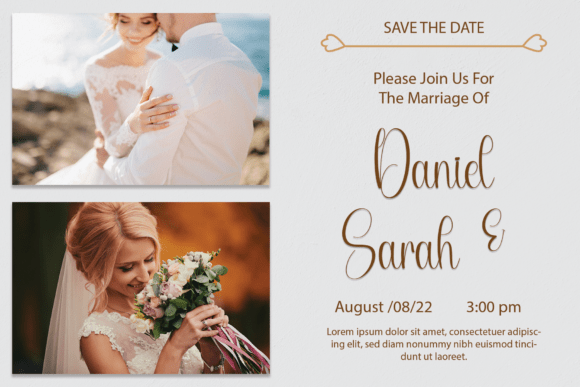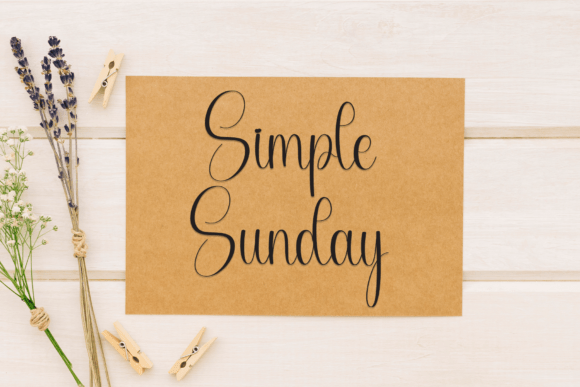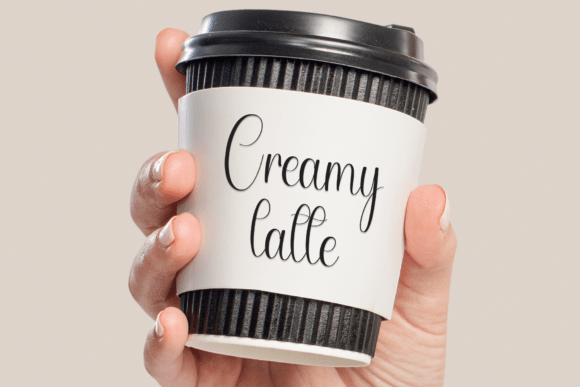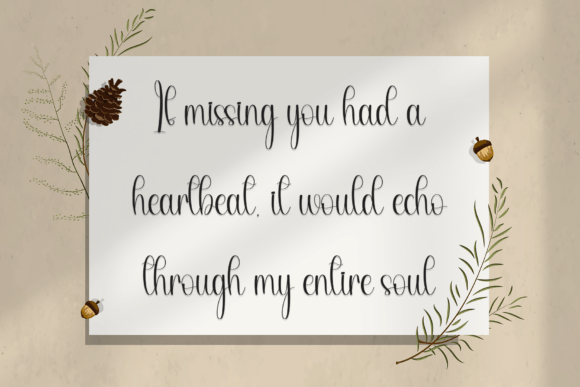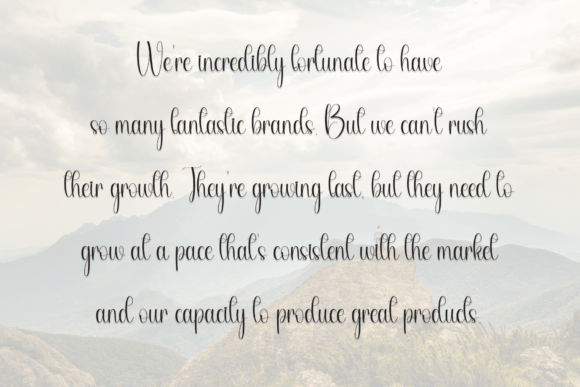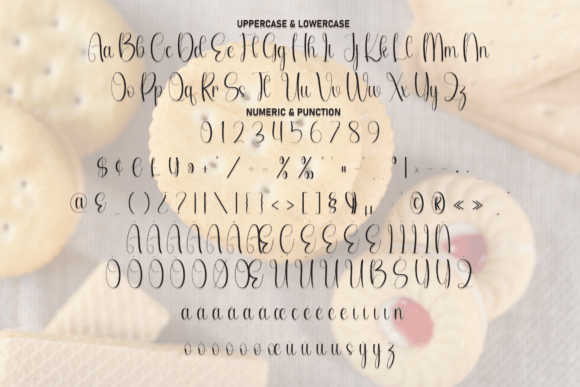
Biscuits Font: Elevate Your Designs with an Artisanal Touch
In the world of typography, few fonts manage to evoke the same sense of elegance and whimsy as Biscuits. This beautiful script font is designed to bring a touch of artisanal charm to your creative projects, making it perfect for designers and crafters looking to add a personal touch to their work. In this article, we’ll dive into the features and benefits of Biscuits Font, and explore how it can elevate your designs to the next level.
A Brief Introduction to Biscuits Font
Biscuits is an elegant and airy script font that boasts a distinctive personality. Its fine monolinear strokes and natural, upright posture give it a sense of sophistication and refinement, while its wide character spacing ensures that each letter has room to breathe. This beautiful typeface is labeled as a creative style font and beautiful script font, making it an excellent addition to any designer’s toolkit.
Key Features of Biscuits Font
So, what sets Biscuits Font apart from other script fonts on the market? Here are just a few of its key features:
- Fine monolinear strokes: Biscuits Font features delicate, single-line strokes that give it a sense of elegance and refinement.
- Natural, upright posture: The font’s natural posture is upright, giving it a sense of stability and balance.
- Wide character spacing: The wide character spacing ensures that each letter has room to breathe, creating a sense of airiness and freedom.
- Delicate, integrated motifs: The font features delicate motifs that add a touch of whimsy and personality to each letter.
- Soaring ascenders: The font’s ascenders are long and flowing, creating a sense of movement and energy.
Use Cases for Biscuits Font
Biscuits Font is a versatile typeface that can be used in a variety of creative projects. Here are just a few ideas to get you started:
- Boutique food branding: The font’s artisanal charm makes it perfect for boutique food brands looking to add a personal touch to their packaging and marketing materials.
- Sentimental greeting cards: The font’s elegant and airy feel makes it perfect for sentimental greeting cards and invitations.
- Personalized gift packaging: Add a personal touch to your gift packaging with Biscuits Font, perfect for small businesses and crafters.
- Creative digital headers: The font’s soaring ascenders and delicate motifs make it perfect for creative digital headers and titles.
Why Choose Biscuits Font?
So, why choose Biscuits Font for your next creative project? Here are just a few reasons:
- Unique personality: Biscuits Font has a distinctive personality that sets it apart from other script fonts on the market.
- Elegant and airy feel: The font’s fine monolinear strokes and wide character spacing give it an elegant and airy feel that’s perfect for a variety of creative projects.
- Versatile: Biscuits Font can be used in a variety of creative projects, from boutique food branding to sentimental greeting cards.
In conclusion, Biscuits Font is a beautiful and elegant script font that’s perfect for designers and crafters looking to add an artisanal touch to their creative projects. With its fine monolinear strokes, natural upright posture, and delicate motifs, this font is sure to elevate your designs to the next level. Whether you’re working on boutique food branding, sentimental greeting cards, or creative digital headers, Biscuits Font is a versatile typeface that’s sure to impress.